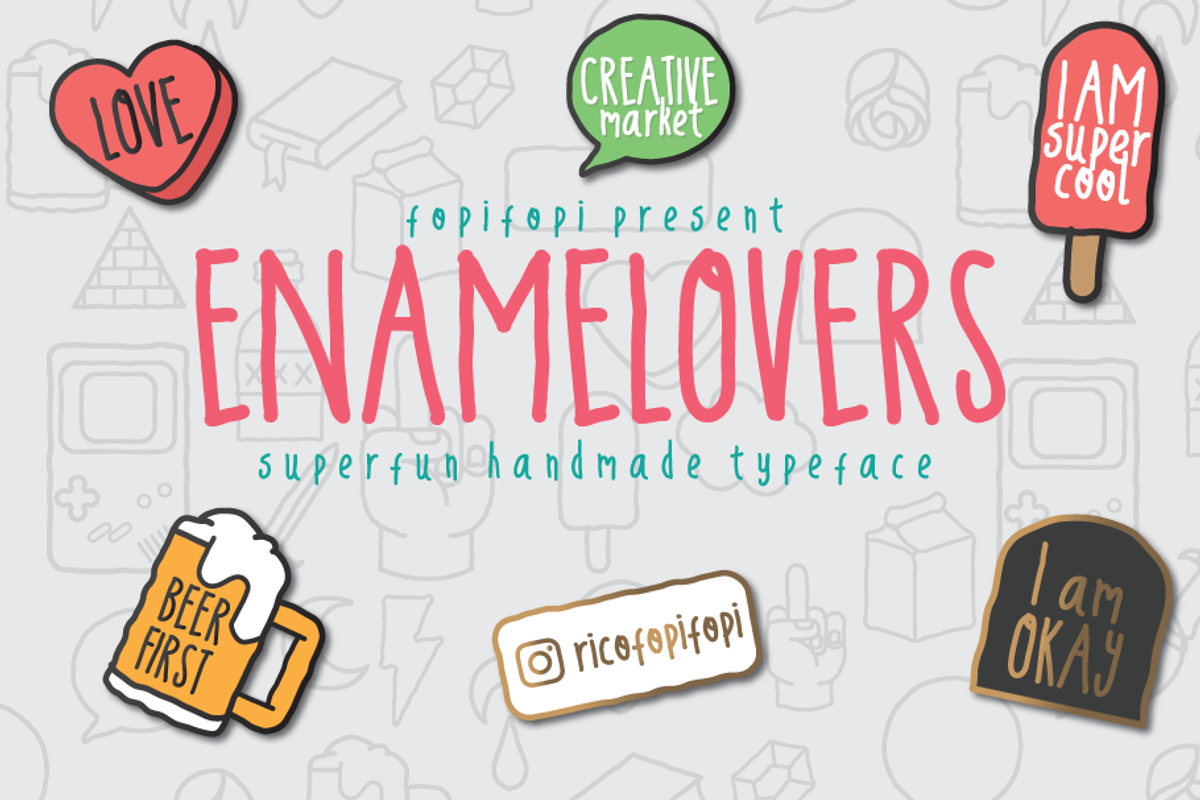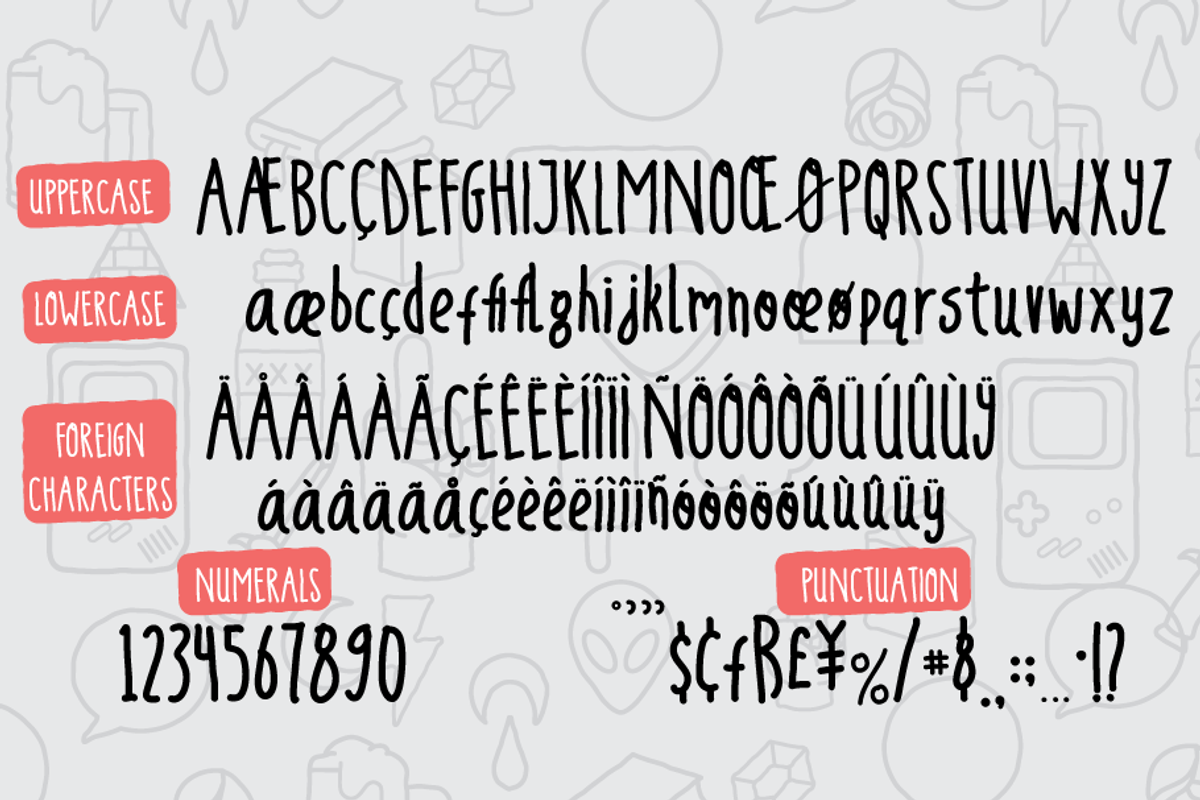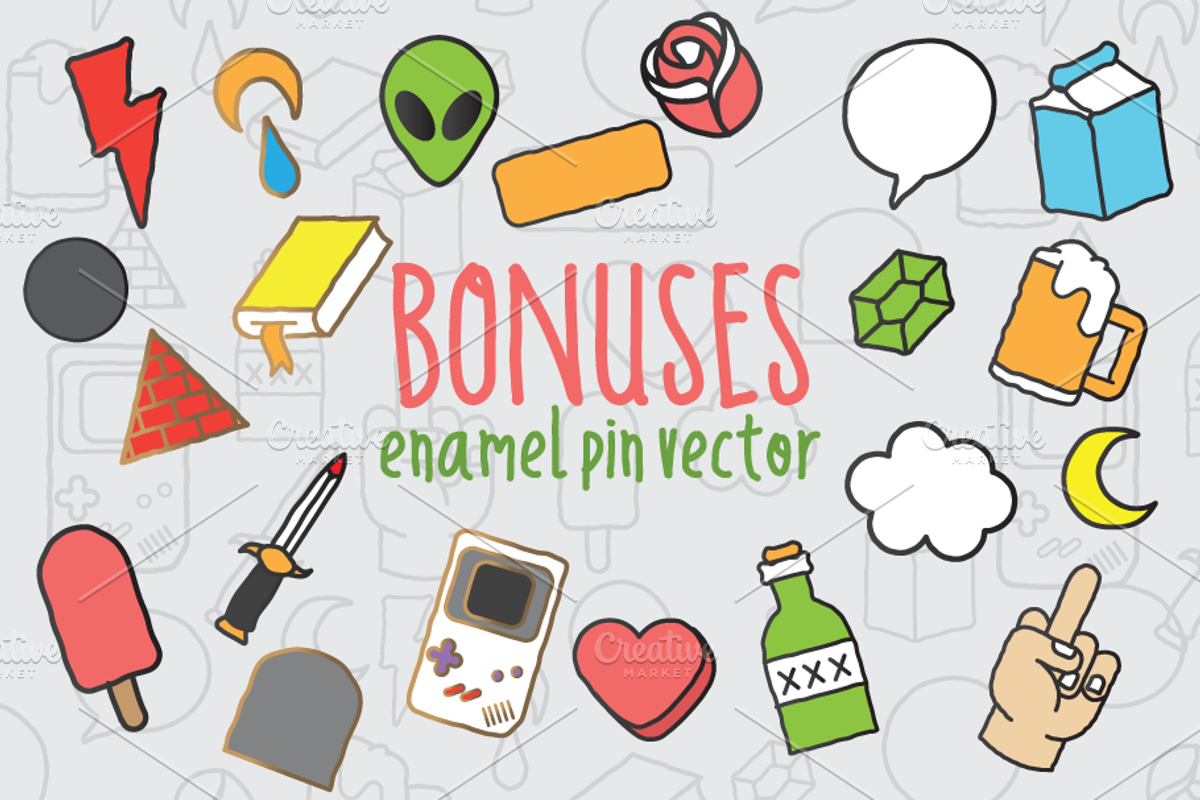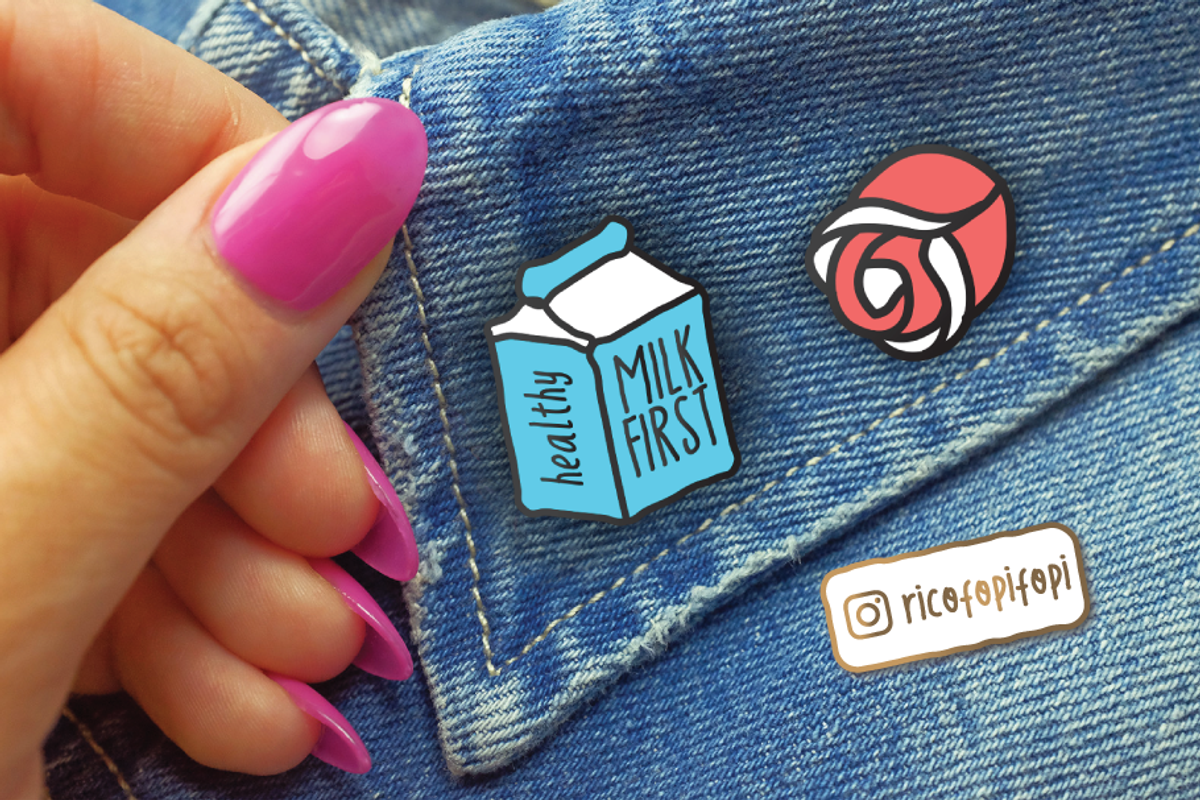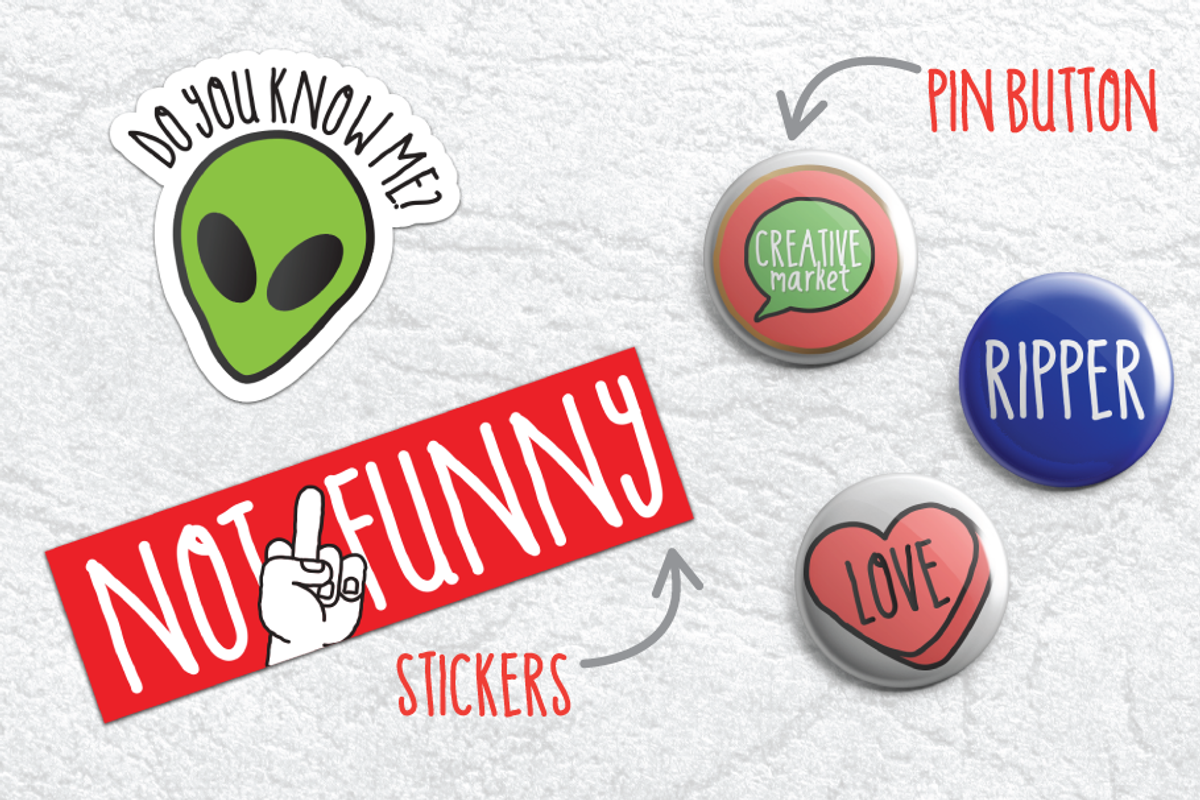
ENAMELOVERS Superfun Handmade Typeface + Bonuses
Because we see that now everyone’s crazy about these piercing babies and the “why not?”, here’s a font with bonus that you can easily mix & match to create customized enamel pins. The font has a thick manual feel on it, it’s like saying, “Chill, man!” when the heat is up. It’s fun, trendy, and or like Bruno Mars calls it: Finesse.